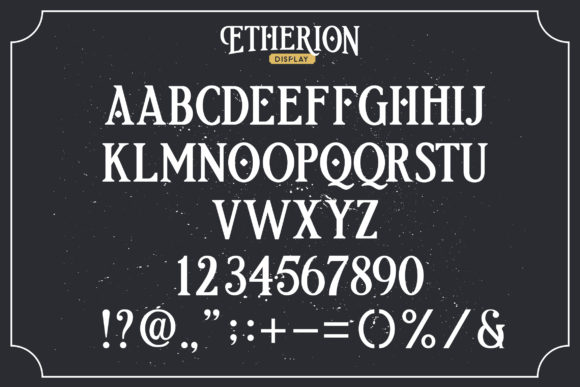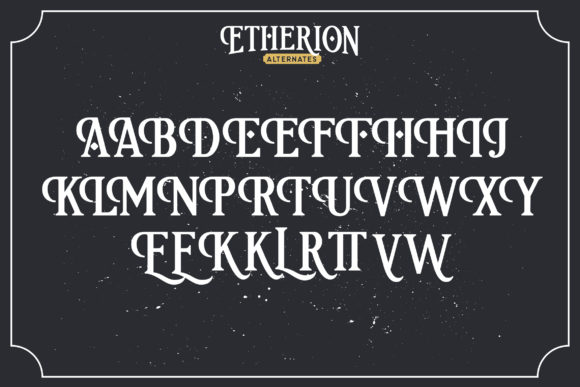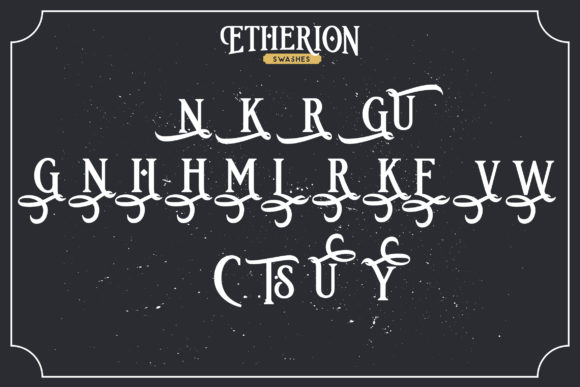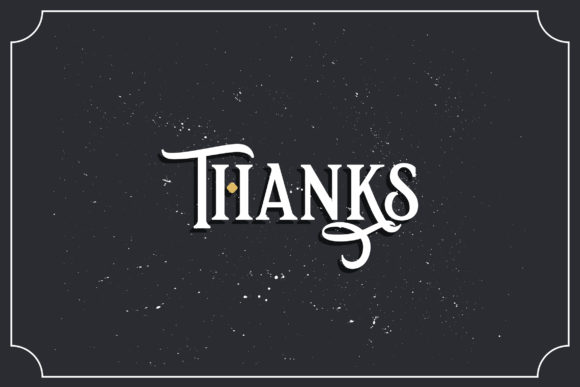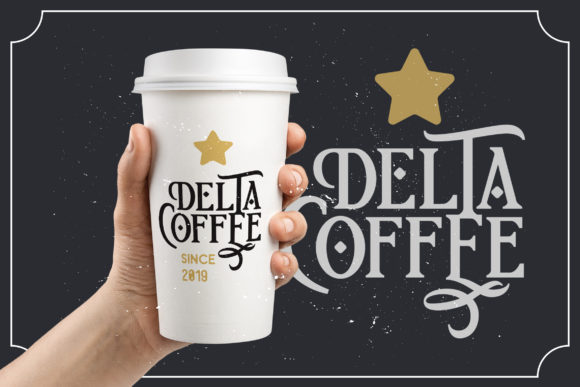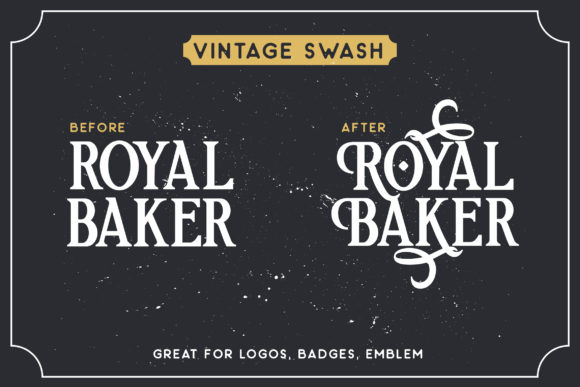
Introducing Etherion Font: Elevate Your Designs with a Touch of Classic Elegance
In the world of design, fonts play a pivotal role in bringing a concept to life. Among the myriad of typefaces available, Etherion stands out as a beacon of classic elegance and modern appeal. This beautiful handmade display font is inspired by the timeless charm of poster designs from yesteryears, making it an excellent choice for designers and crafters looking to add a touch of sophistication to their projects.
The Inspiration Behind Etherion
Etherion’s design roots are deeply embedded in the art of traditional poster making. Its creator aimed to capture the essence of classic typography, where every letter was meticulously crafted to convey a message with style and flair. The result is a font that exudes warmth, character, and a sense of nostalgia, reminiscent of vintage posters that once adorned the streets.
Key Features of Etherion Font
- Handmade with Love: Etherion is not just a font; it’s a piece of art. Each letterform is carefully crafted by hand, giving it a unique and personal touch that sets it apart from machine-generated typefaces.
- Comprehensive Character Set: Etherion comes equipped with an extensive range of characters, including uppercase and lowercase letters, numerals, and punctuation marks. This comprehensive set ensures that you have everything you need to create stunning designs.
- Display Font Versatility: While Etherion shines as a display font, its versatility allows it to be used in various design contexts, from headings and titles to logos and branding materials.
- Classic yet Modern: Etherion strikes the perfect balance between classic aesthetics and modern sensibilities, making it suitable for a wide array of design projects, from vintage-inspired branding to contemporary advertising.
Why Choose Etherion for Your Design Projects?
Choosing Etherion for your design projects can significantly elevate the visual appeal of your work. Here are a few reasons why designers and crafters are gravitating towards this beautiful font:
- Eye-Catching Designs: With Etherion, you can transform any design idea into a visually stunning piece that captures attention. Its unique character and classic charm make it perfect for projects that require a standout element.
- Time-Saving: Given its comprehensive character set and versatile design, Etherion can save you time in the design process. You can create professional-looking designs without the need for extensive customization.
- Enhance Brand Identity: For branding projects, Etherion can add a layer of sophistication and elegance. Its distinctive style can help in creating a memorable brand identity that resonates with your audience.
Tips for Using Etherion Effectively in Your Designs
To make the most out of Etherion, consider the following tips:
- Pair with Simplicity: Etherion’s bold and expressive nature can be balanced with simpler fonts in your design. This contrast can create a harmonious visual hierarchy.
- Experiment with Colors: While Etherion looks stunning in classic colors like gold, black, and red, don’t be afraid to experiment with modern color palettes to give your designs a fresh look.
- Play with Sizes: Utilize Etherion in various sizes to create visual interest. Using larger sizes for headings and smaller sizes for subheadings can add depth to your design.
Etherion is more than just a font; it’s a design statement. Its handmade, classic yet modern appeal makes it an invaluable asset for designers and crafters aiming to create eye-catching designs. Whether you’re working on a branding project, crafting a poster, or designing a logo, Etherion can help you achieve that perfect blend of elegance and impact. With its comprehensive character set and versatile design, Etherion is poised to become your go-to font for projects that demand a touch of sophistication and a dash of creativity.